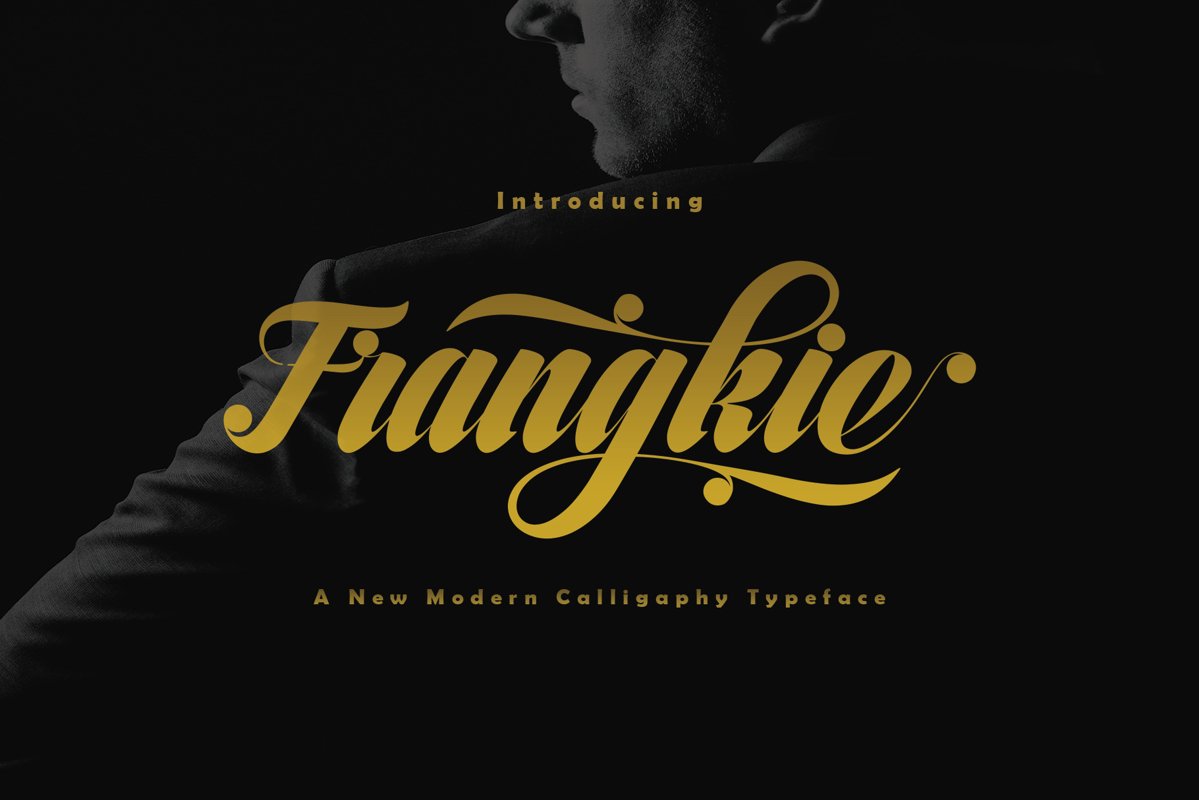
Frangkie
Introducing:
Frangkie a font work that is purely handwritten, has its own characteristics with the style of Frangkie. this is perfect for invitations, signatures, blogs, social media, business cards, product brands.
Frangkie has Stylistic standard, Stylistic Alternate, Stylistic Sets and ligatures. and includes uppercase and lowercase letters, numbers and punctuation marks.
The Features of this fonts is;
* Standart ligatures
* Stylistic Alternates
* Contextual Alternates
* Stylistic sets